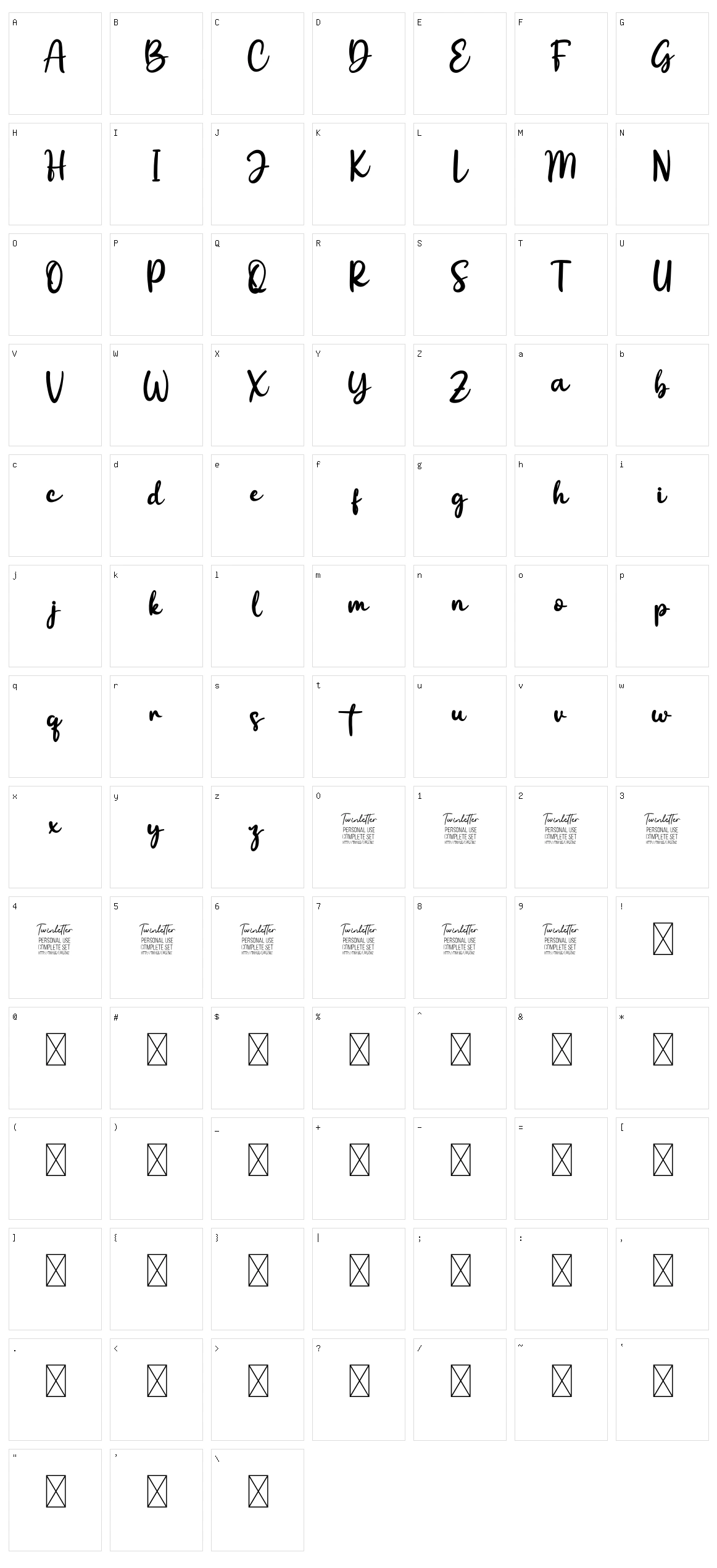
The free font Weetton is carefully designed by twinletter, showcasing a thoughtful balance of creativity and usability and falls under the Script font style. When you download the ZIP file, it contains only 20.67 KB of font files, making it lightweight and quick to download. Please review the license details below to understand permitted usage and distribution rights. If license information is not available, we recommend using this font for personal projects only or contacting the author directly for commercial usage permissions.